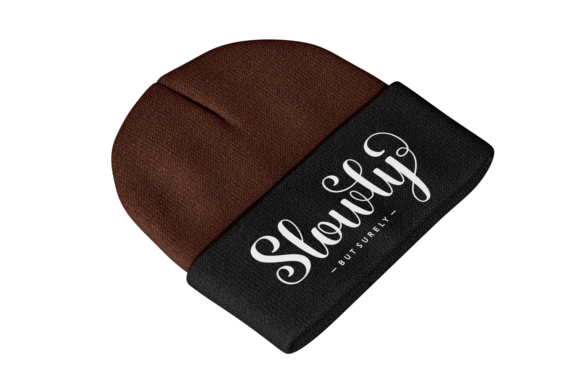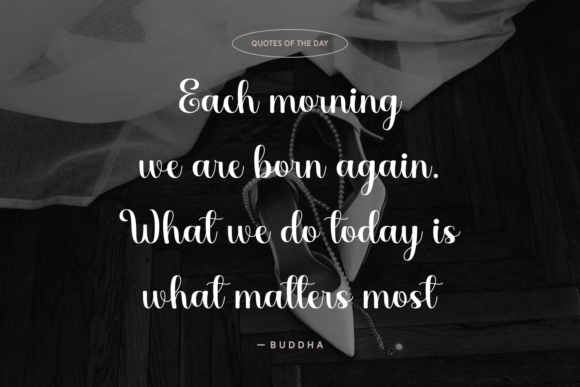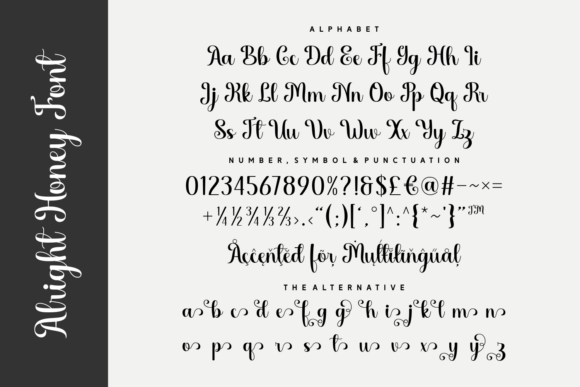
Alright Honey Font
Alright Honey is a sweet and sophisticated script font that captures the charm of handwritten elegance with a modern twist. Featuring smooth curves, playful swashes, and a clean baseline, this typeface strikes the perfect balance between simplicity and flair. It’s ideal for crafting invitations, logos, quotes, greeting cards, and product packaging that require a soft yet confident touch. Whether you’re designing for weddings, lifestyle branding, or heartfelt messages, Alright Honey delivers warmth with a touch of class.